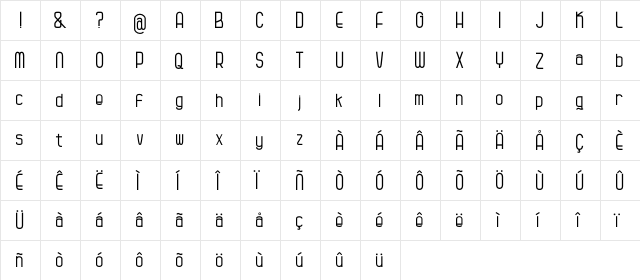
Kagura Regular
| Designer | Ef Studio 2018 |
Design Context for Kagura Typeface
Kagura takes a measured approach to typography — its balanced proportions and neutral character make it a reliable workhorse for both digital and print work.